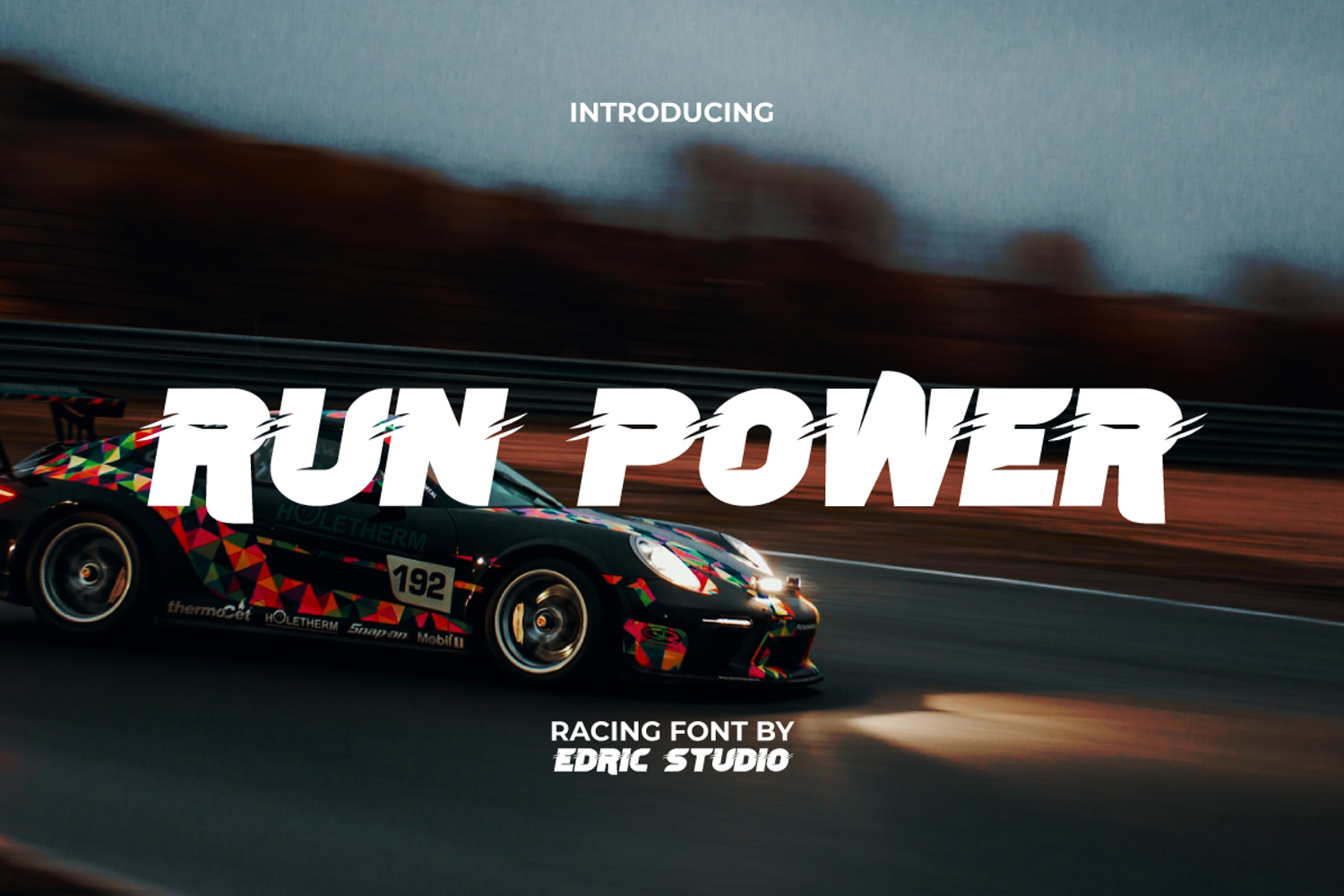
Run Power Font
Run Power Font is a racing sporty dynamic display font designed with a sense of speed it’s here for powerful looks. This is perfect for creating racing sports themed designs. Intended for creating blogs, brochure, cover, flyer, header, making logos, packaging design, pamphlet, poster, product label, quotes, screen print, signage, sticker, tag, title, website, and much more.
Run Power Font comes with a full set of ALL CAPS for Uppercase and Lowercase letters, Number, Punctuation, and Symbol. The bold and futuristic appearance of the letters conveys the impression of racing at agile speed and evokes a sensation of movement. It can be applied to your creative industry needs, such as accessories, ads, content creator, fashion, film, game, graphic design, gym or fitness center, handicraft, jersey maker, menswear, merchandise, printing, publishing, racing, sport, web designer, etc.